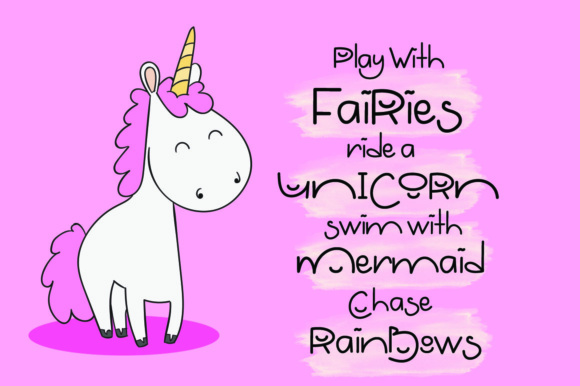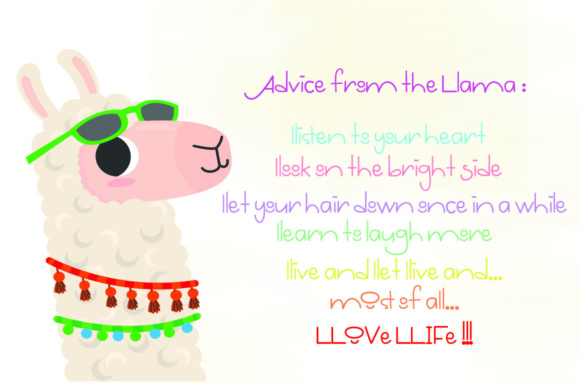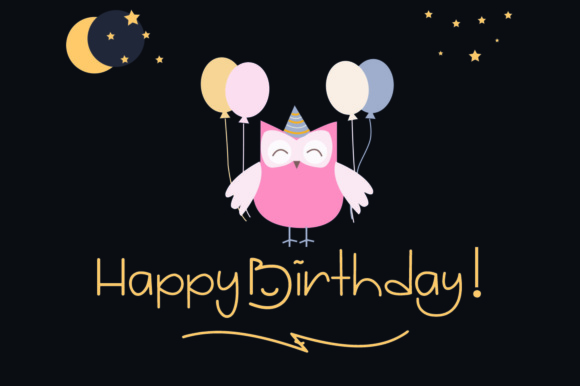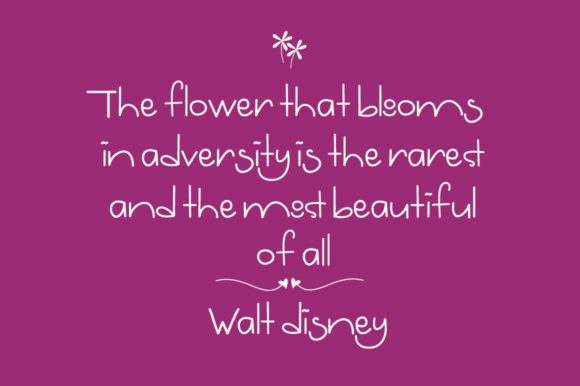
About Mister Boosty Font
Mister Boosty is a cute, sweet, playful sans serif font. It is inspired by kids handwriting and will give your design a childish and fun feel.
Mister Boosty comes with extra handmade ornaments which will make your design more cheerful and make everyone feel happy.
Mister Boosty is suitable for t-shirt designs, logos, printing and is also a great choice for some quotes, advertising, packaging or even just for personal use on your social media posts